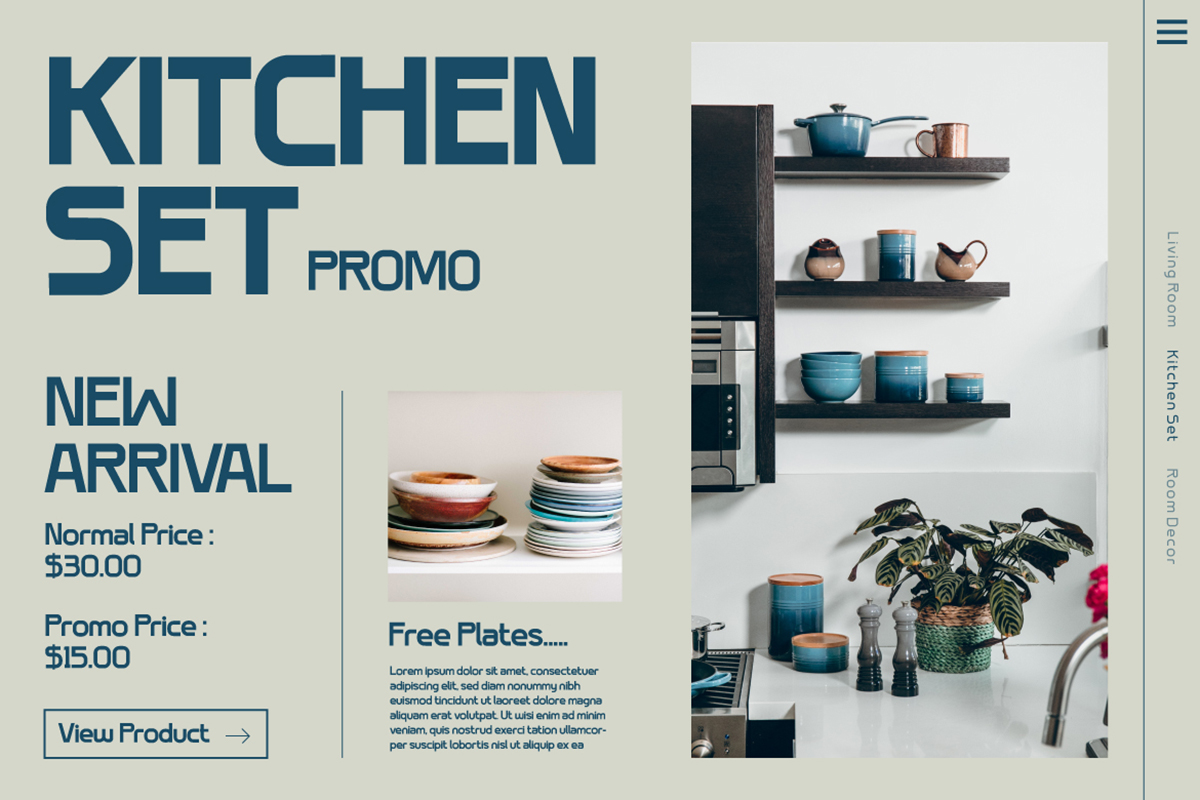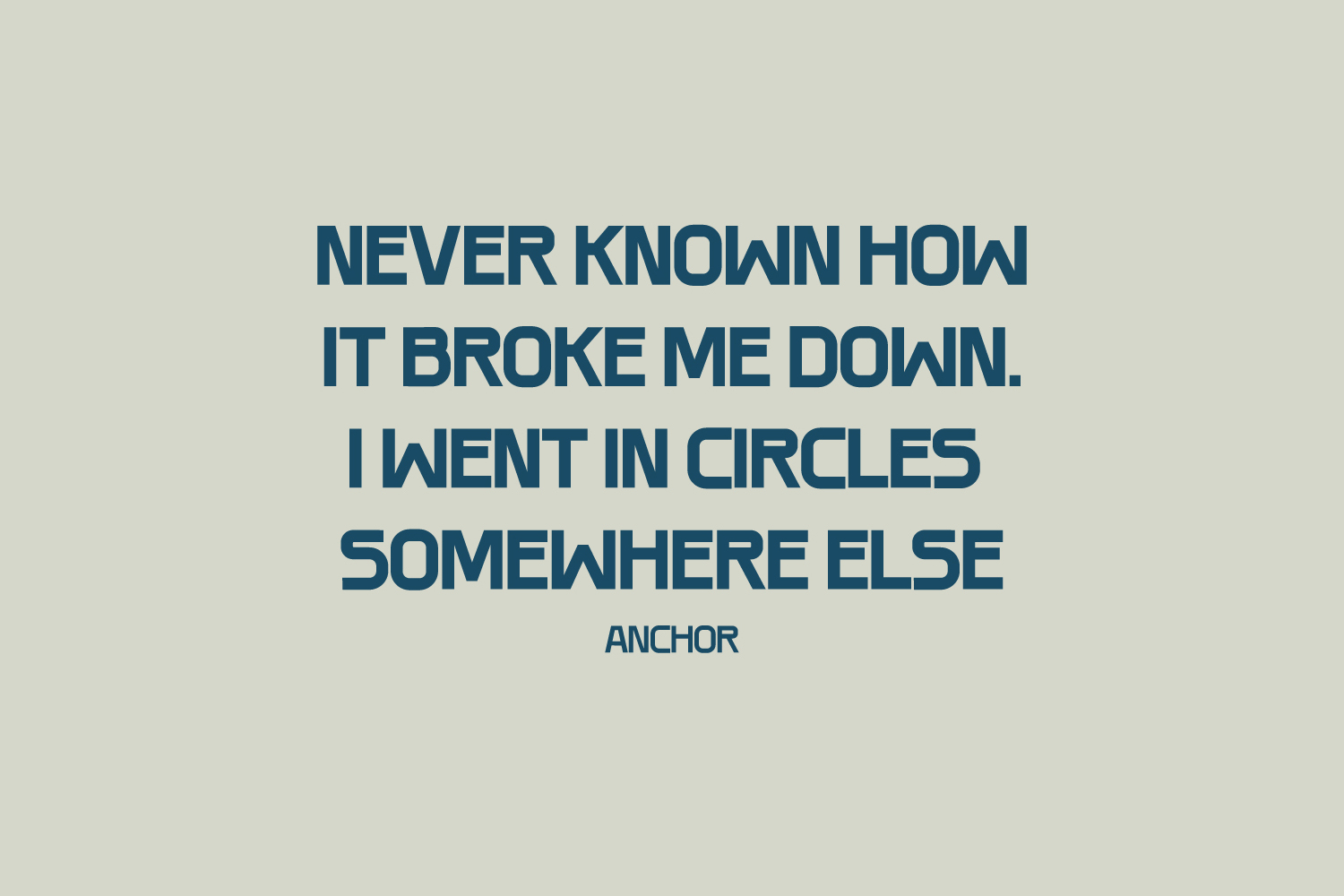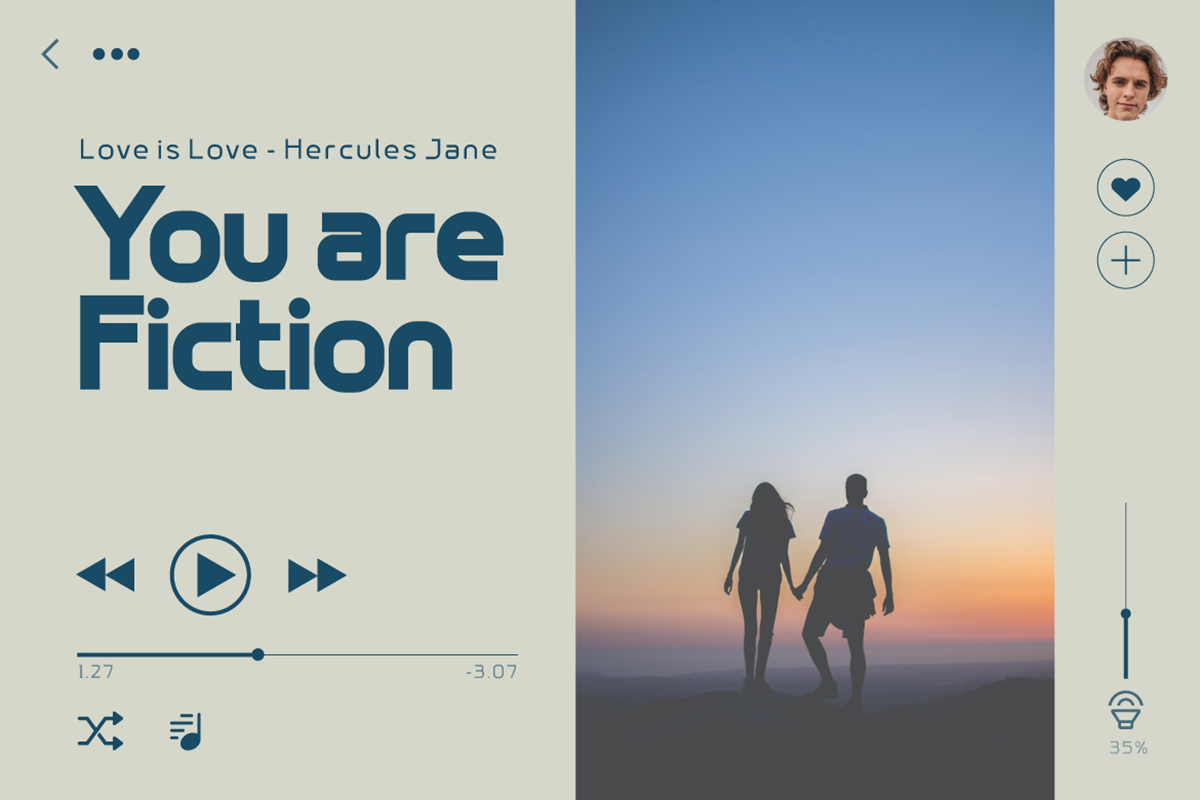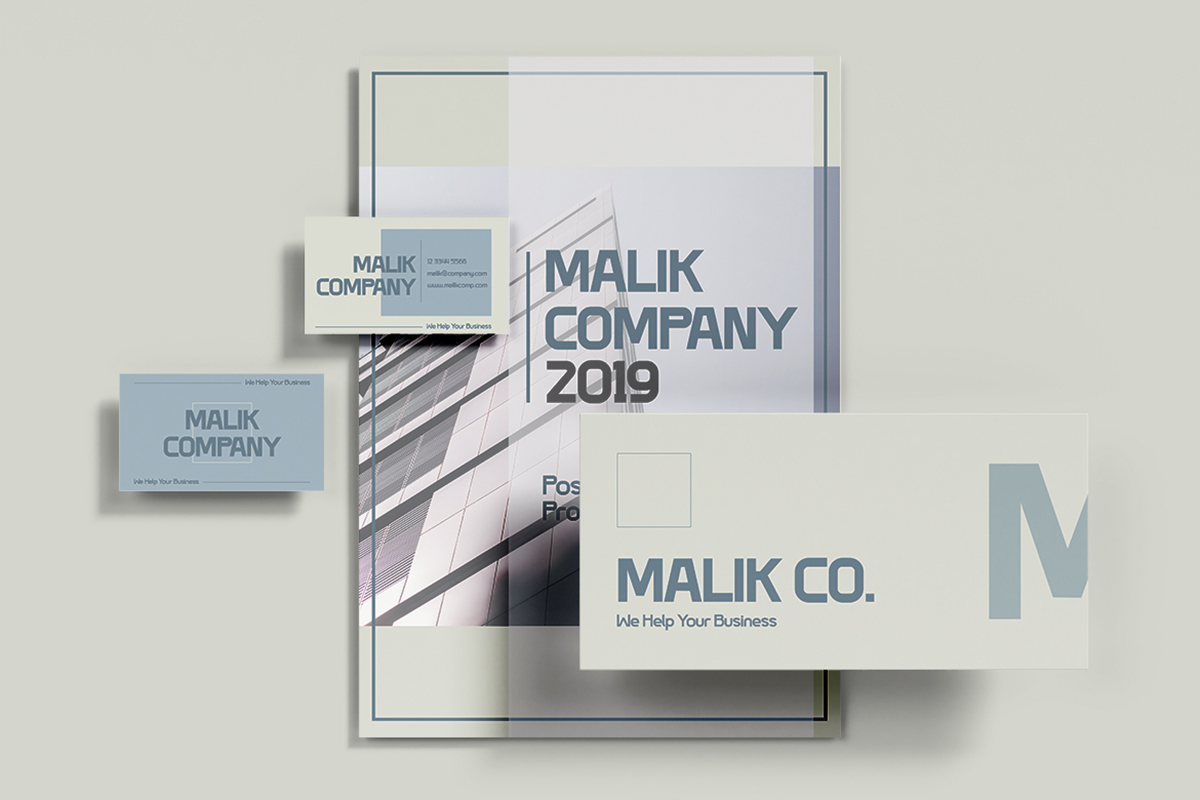
Zimeta Free Font
Discover Zimeta Free Font – a one-of-a-kind sans serif font designed to cater to your diverse demands. With its friendly yet strong character, this font adds a bold and powerful touch to your projects, making them stand out like never before. Embrace the versatility of Zimeta, equipped with a variety of character styles perfectly suited for titles, subtitles, and body text. Your design projects are destined for perfection and extraordinary results when adorned with this remarkable font. Don’t miss the chance to elevate your creations and captivate your audience with Zimeta’s unique style. Let your projects shine with confidence and allure, powered by this exceptional font that knows no bounds. This free typeface was designed by a talented Twin Letter. If you like it don’t forget to check out the full version.